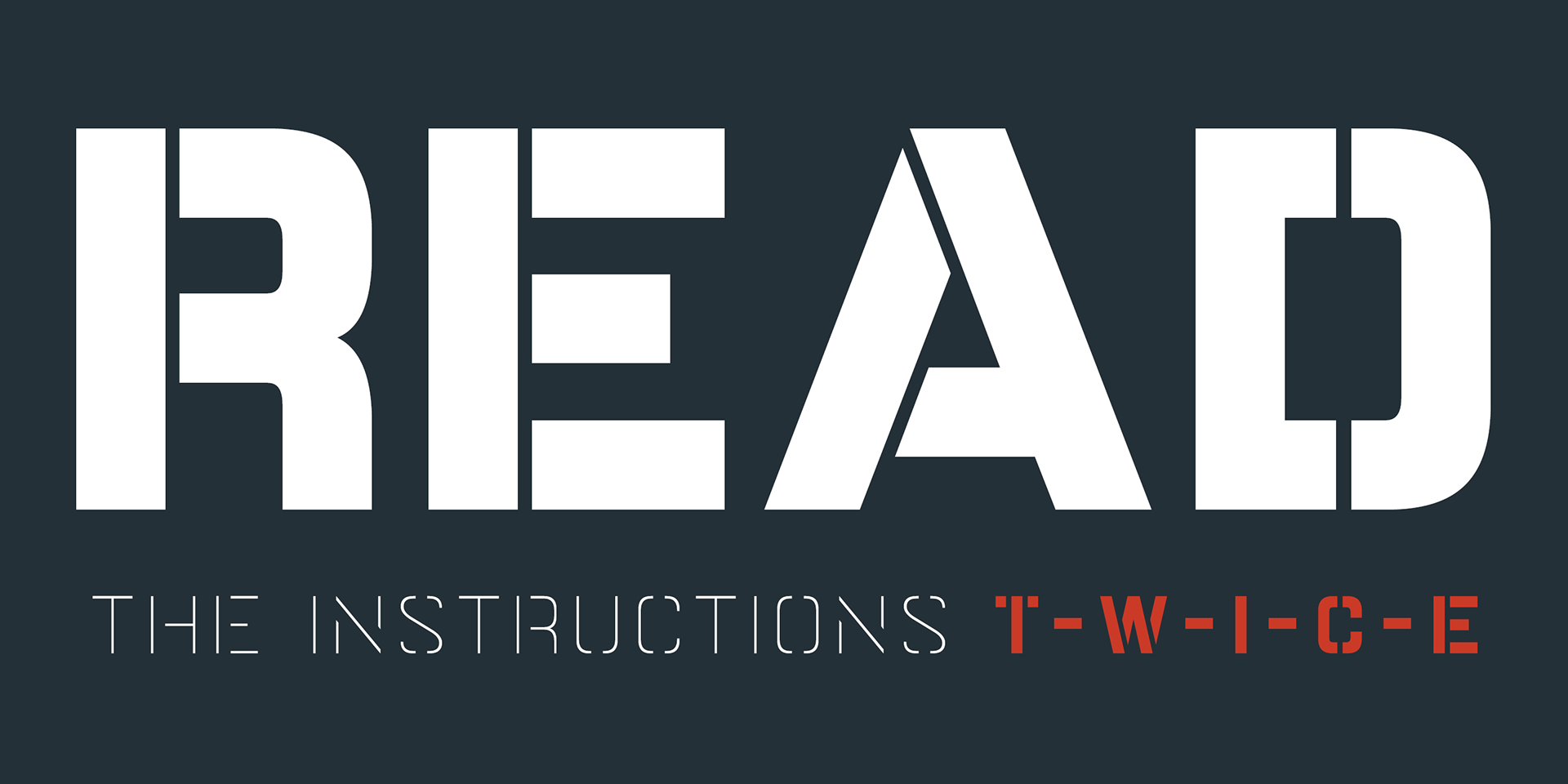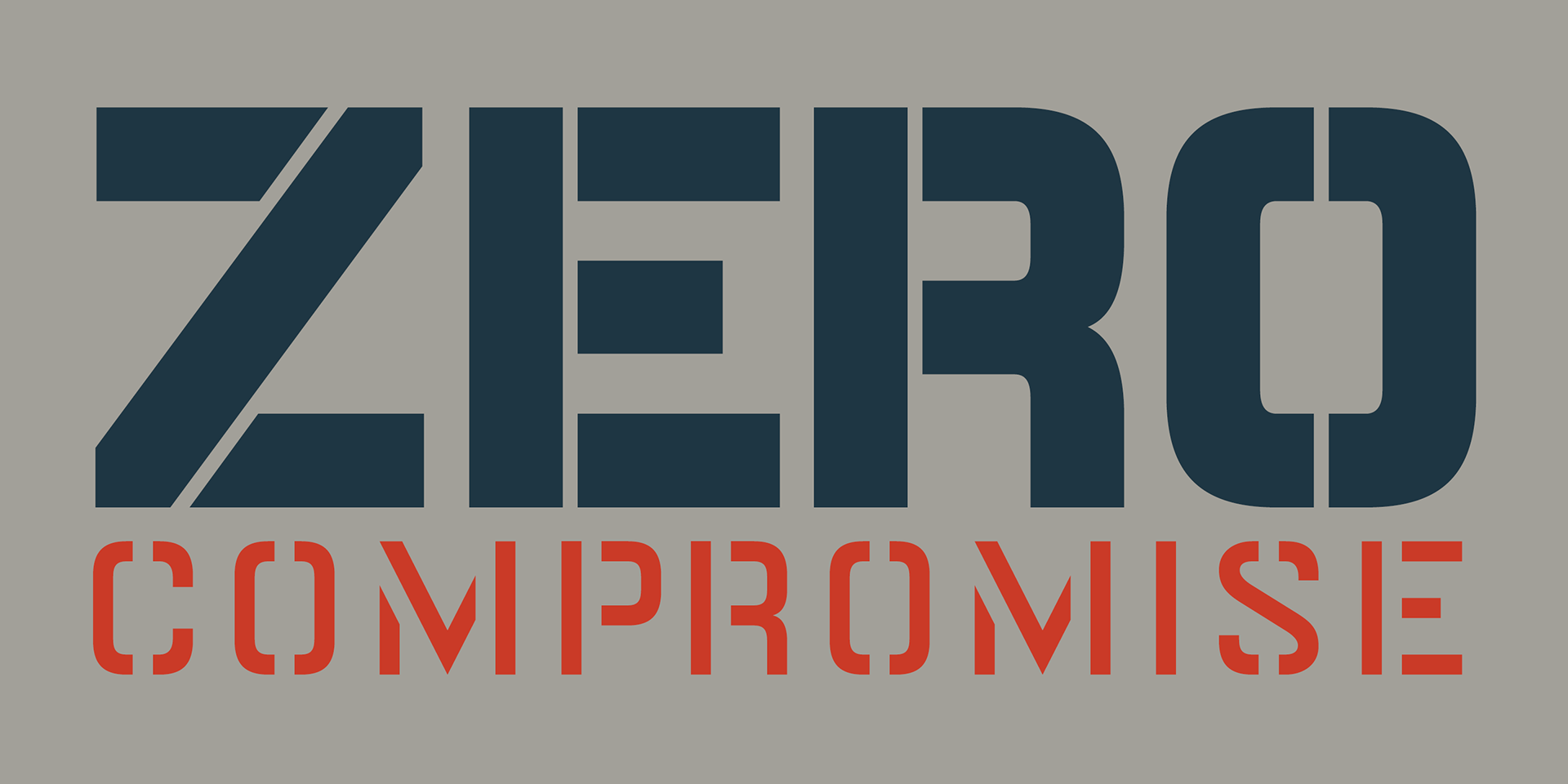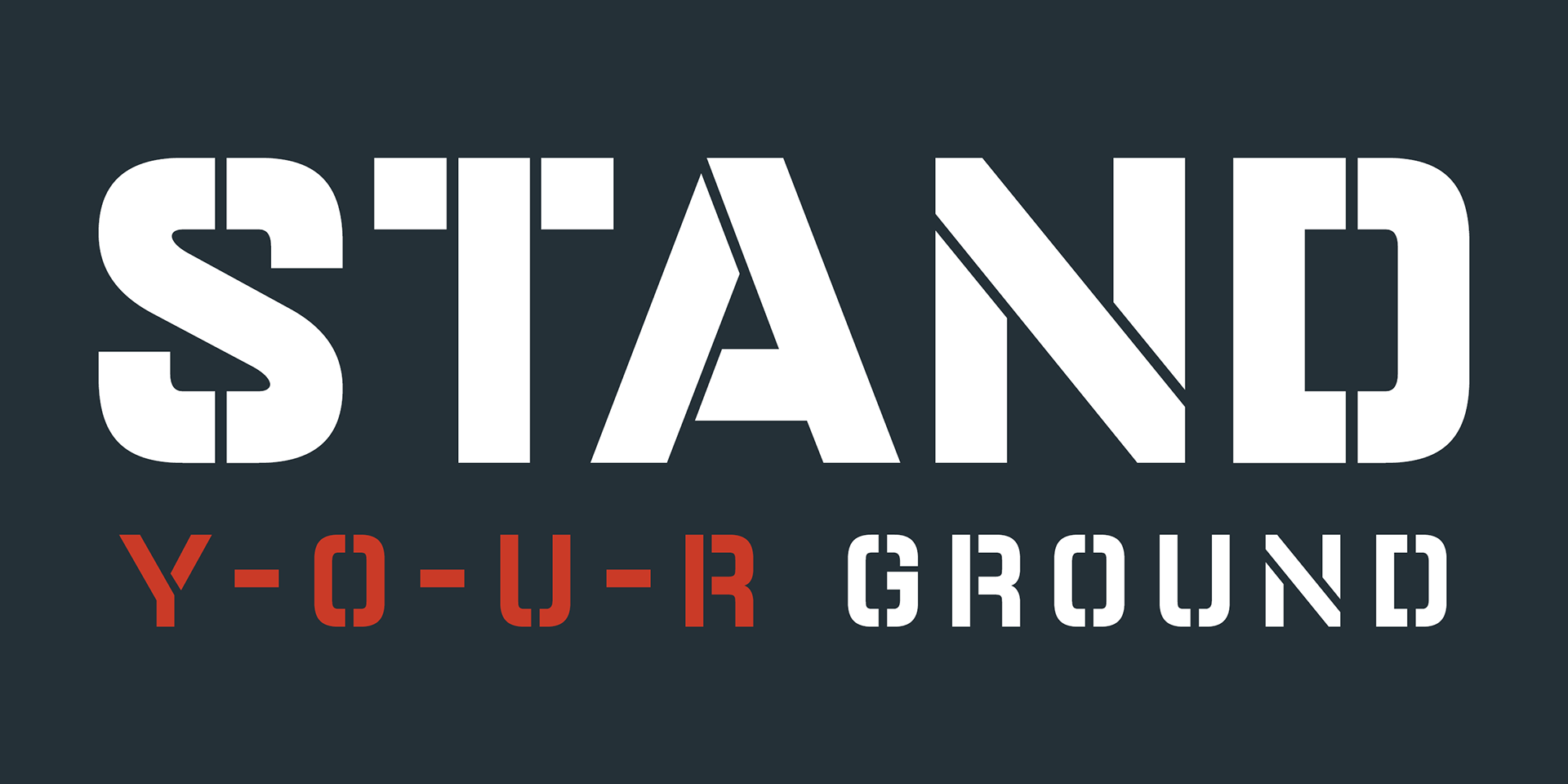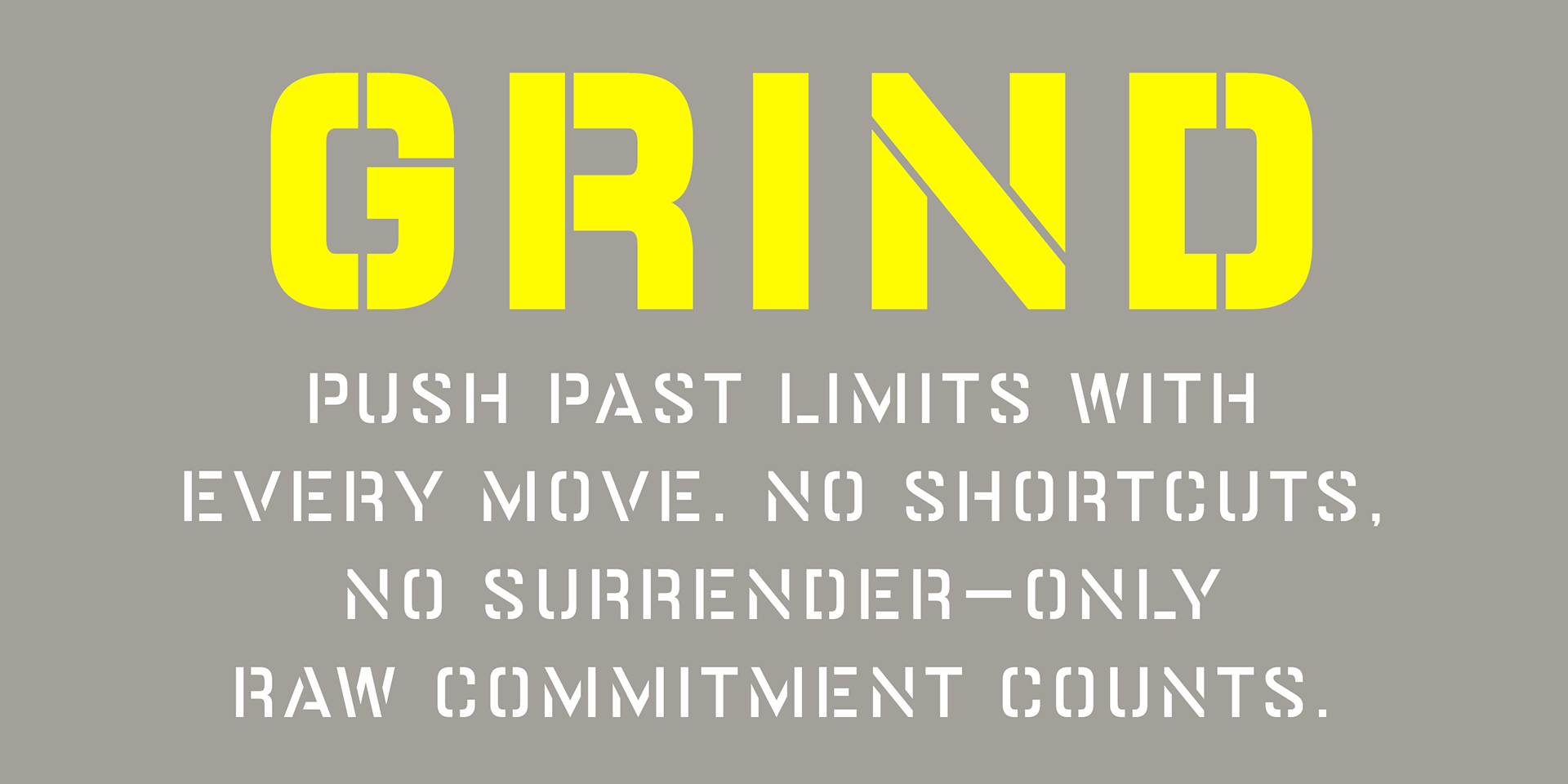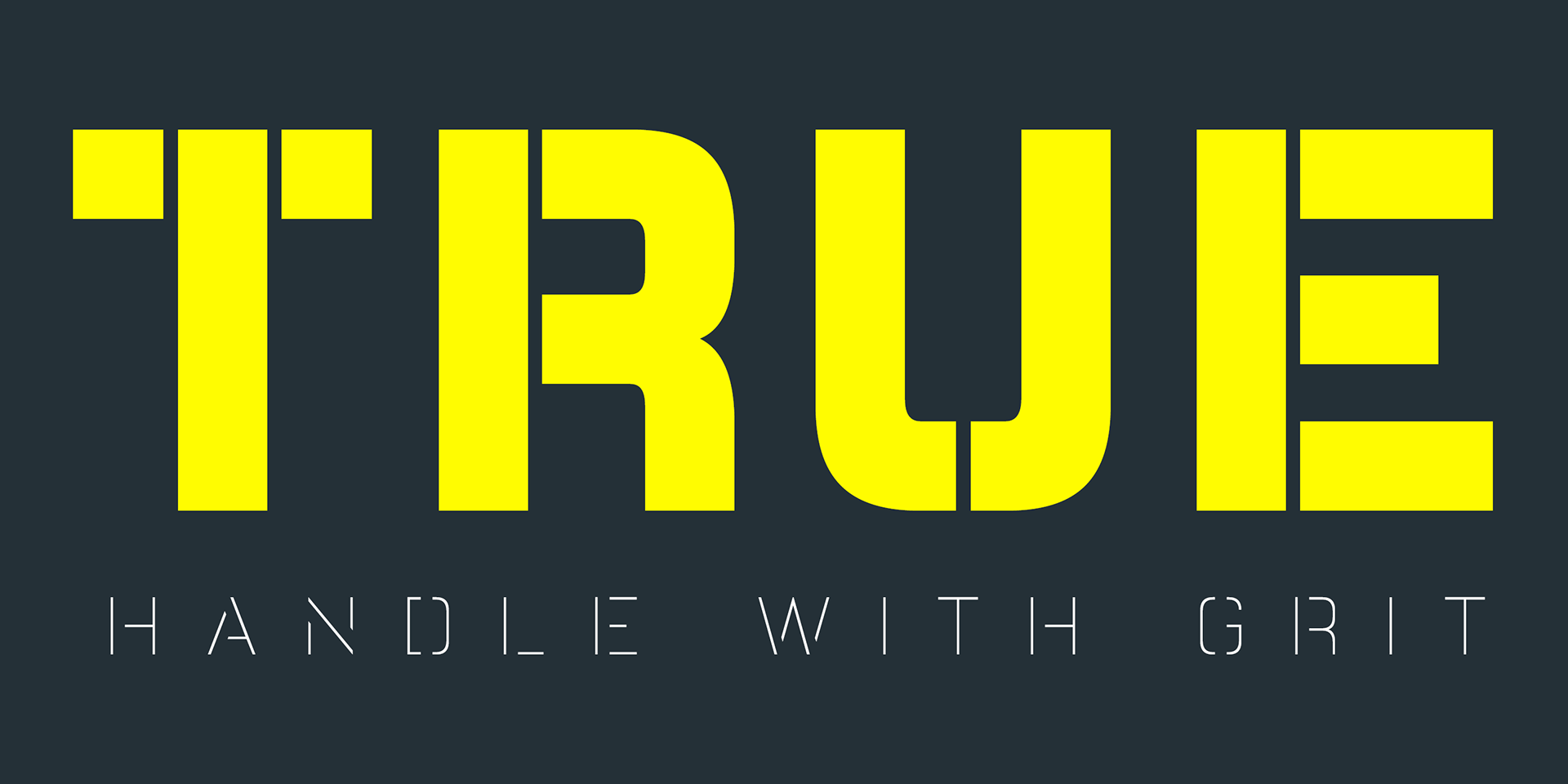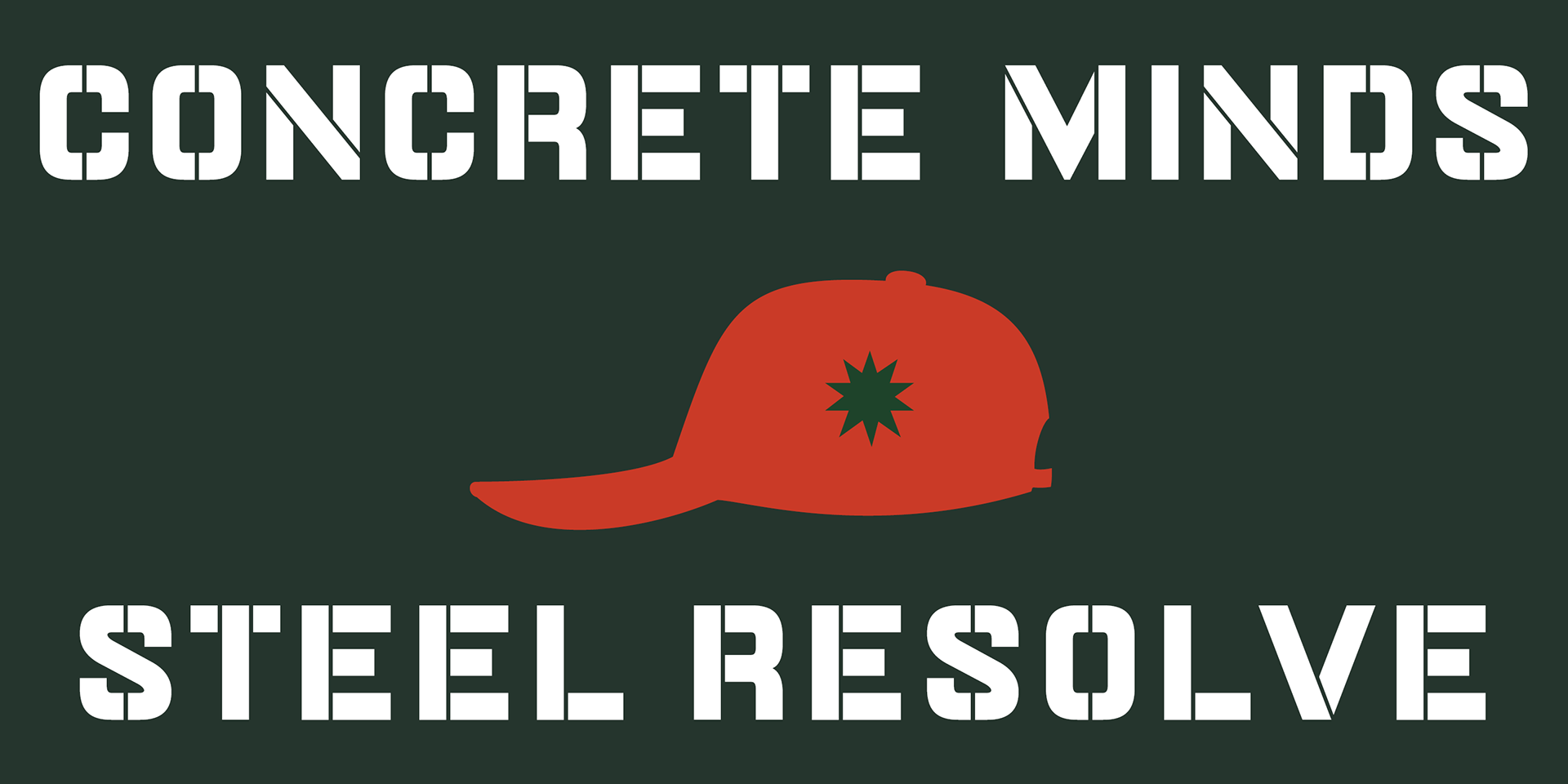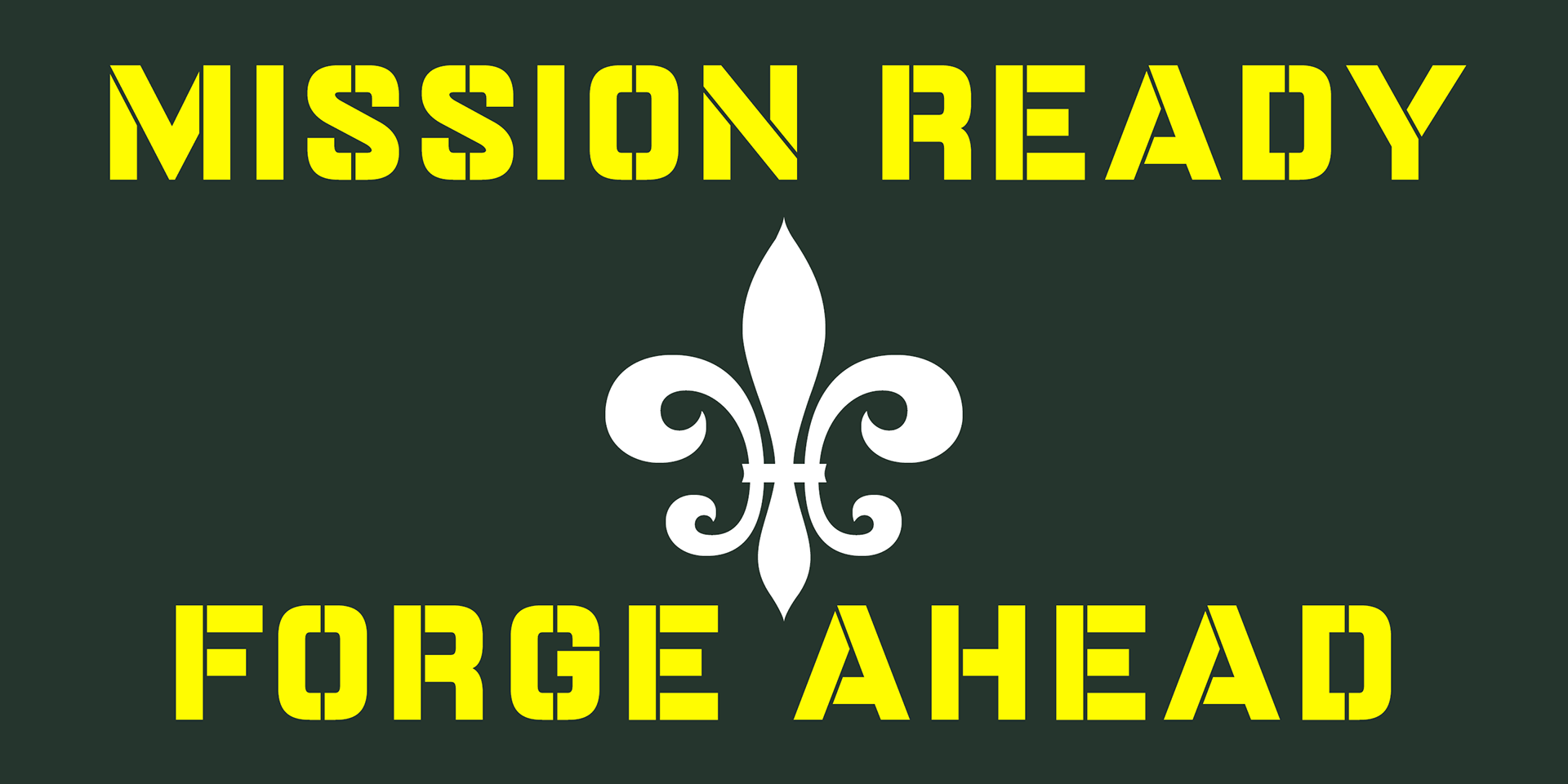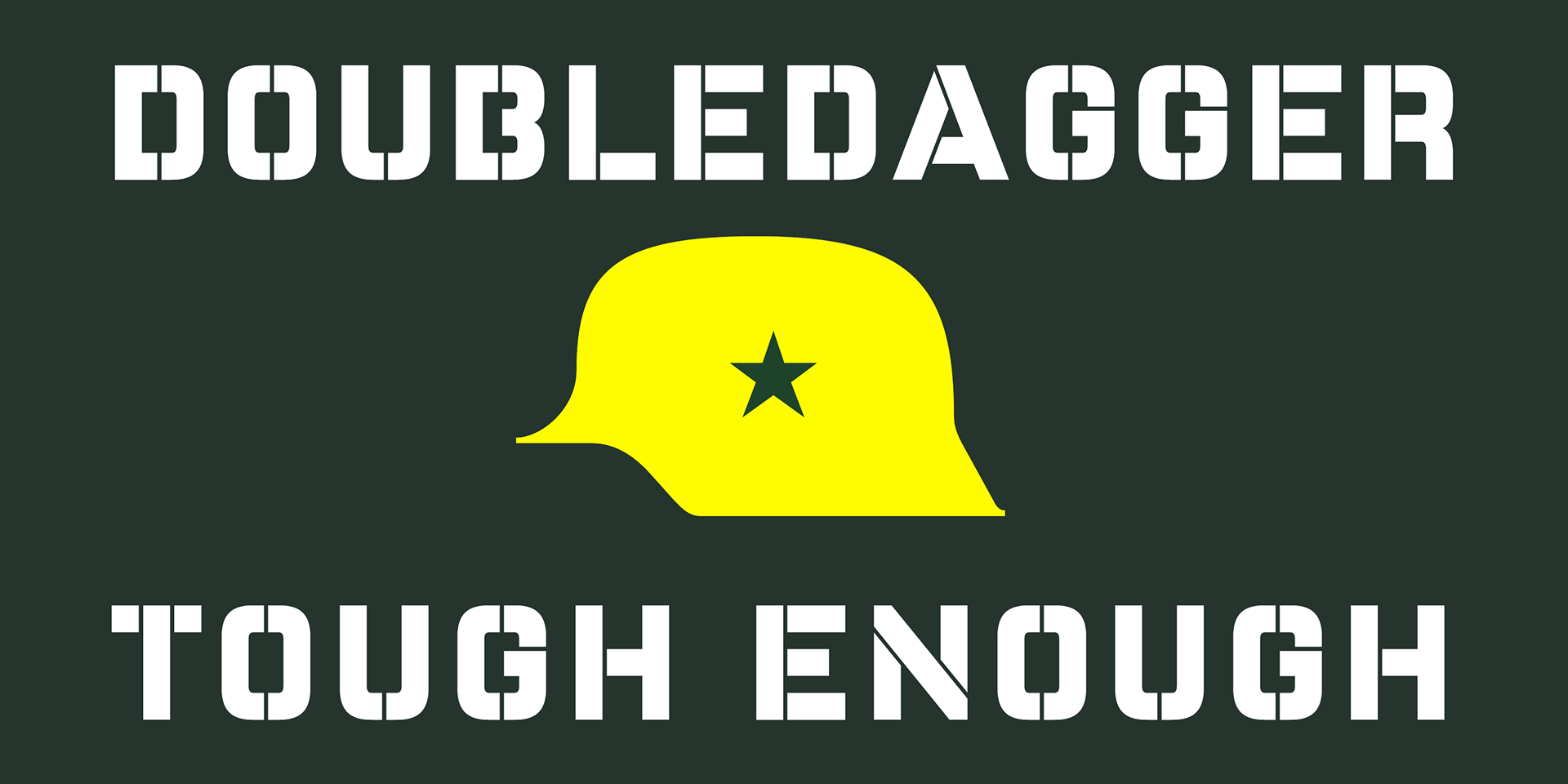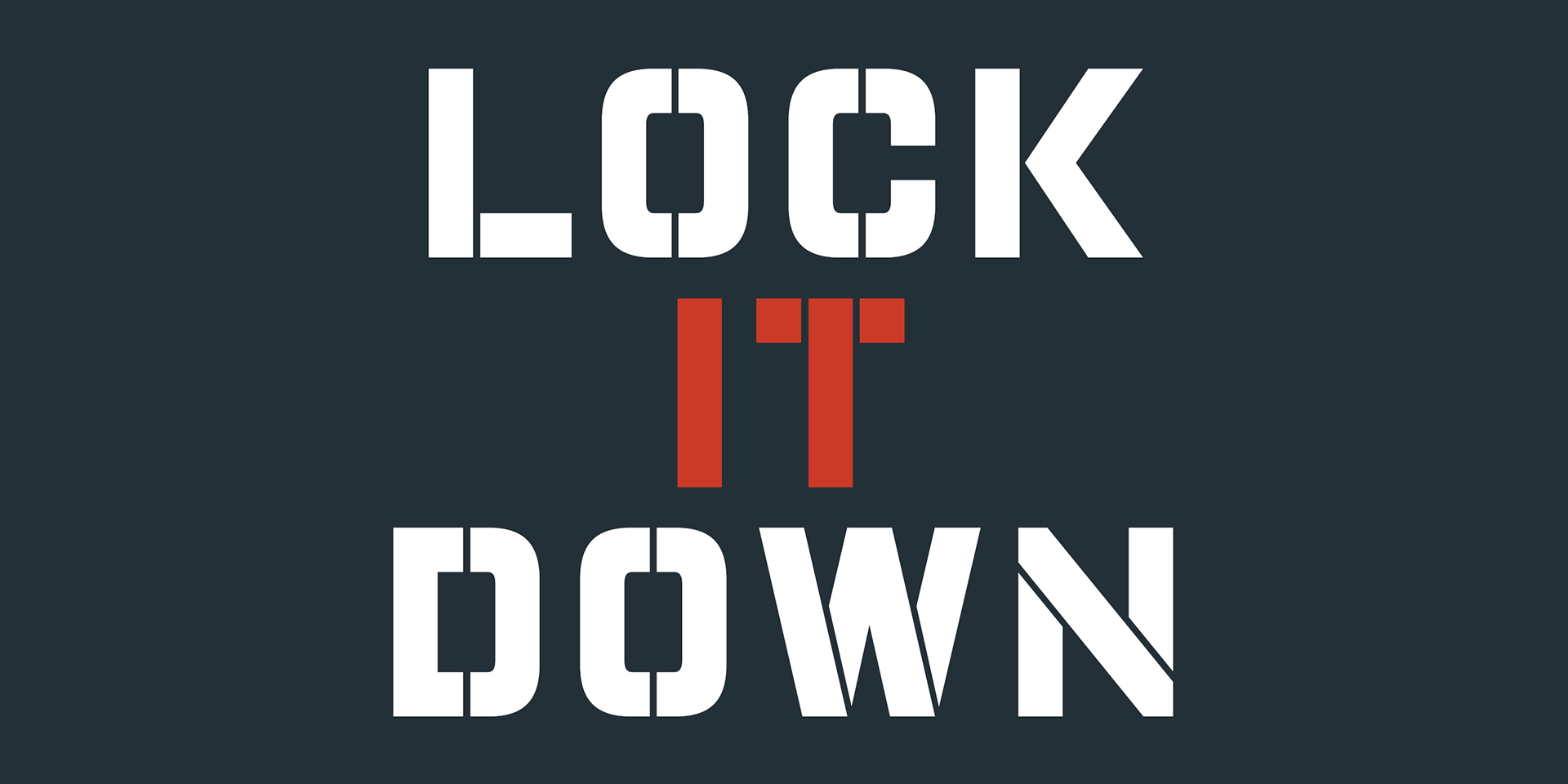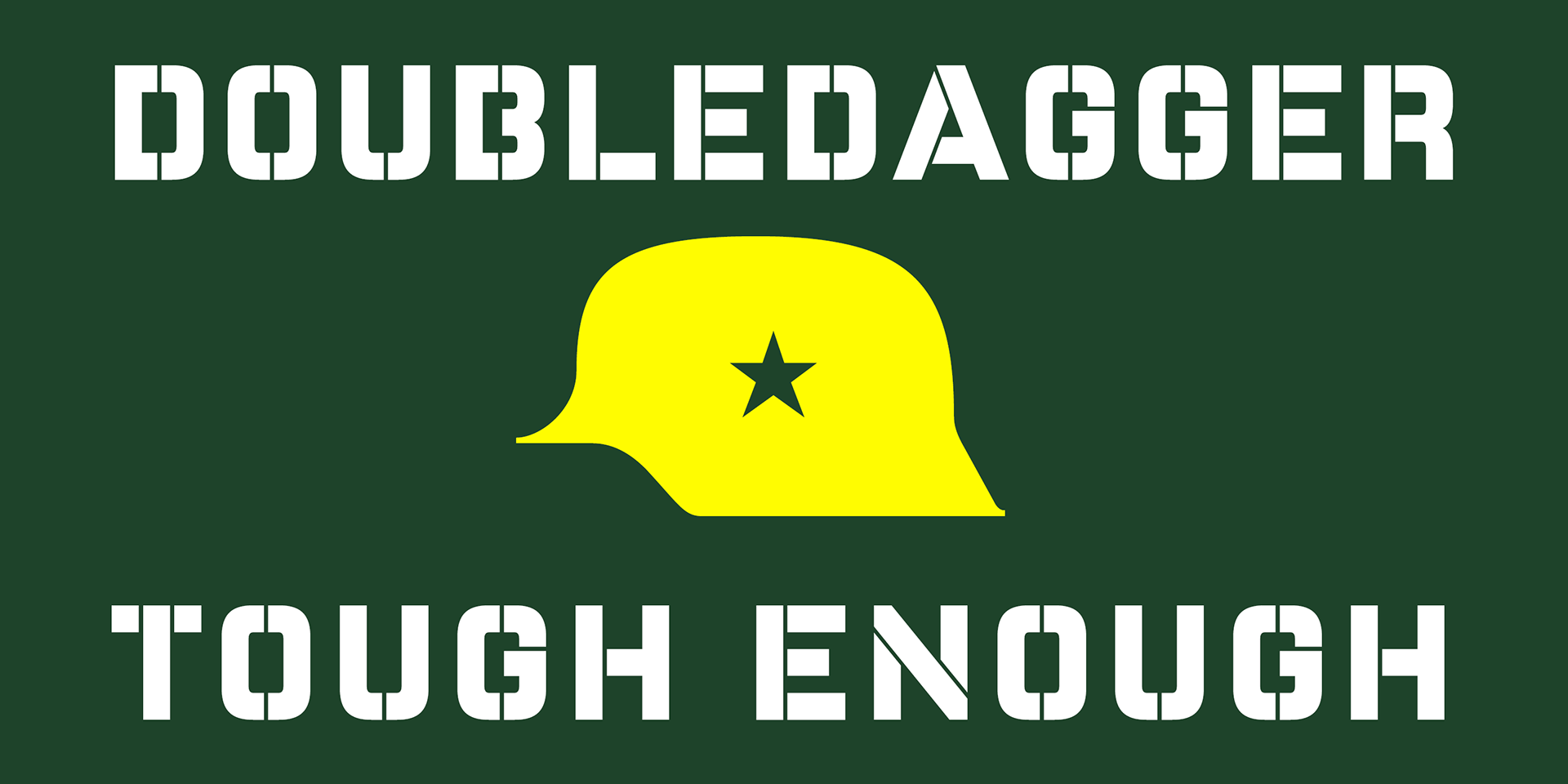
DoubleDagger
A geometric stencil typeface available in a variety of weights.
Its clean, orthodox design makes it highly versatile and suitable for a wide range of creative projects.
The family includes six weights plus an additional dingbat set (Xtra).